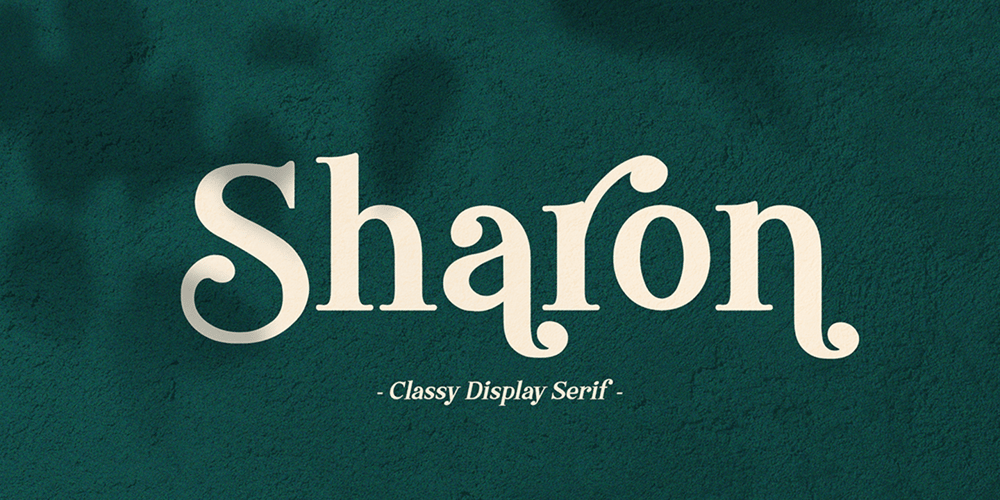
Sharon
Sharon font
Sharon Font Family was designed by Sarwo Edhi Prayitno and published by Haksen. Sharon contains 2 styles and family package options. Sharon is a Classic Display serif style with Uppercase and Lowercase feel nice balanced. Provide alternates font in uppercase and lowercase variant style make the design letter looks incredible. Honestly it works perfectly for headlines, logos, posters, packaging, T-shirts and much more.Recommended to use in Adobe Illustrator or Adobe Photoshop with opentype feature.How to access Alternate Characters?Open glyphs panel : In Adobe Photoshop choose tool Window >> glyphs In Adobe Illustrator choose tool Type >> glyphs Have a great day,Haksen